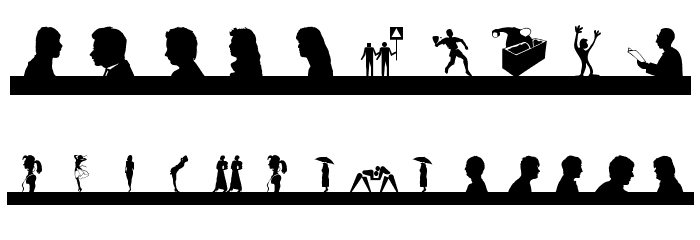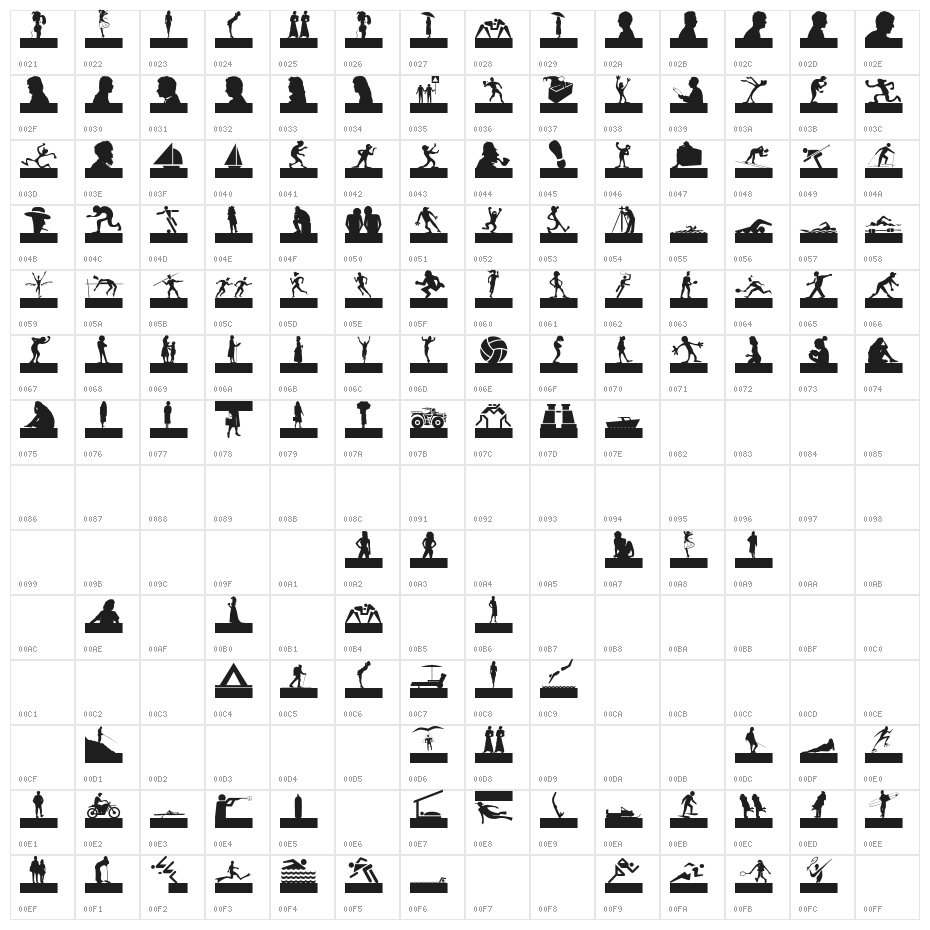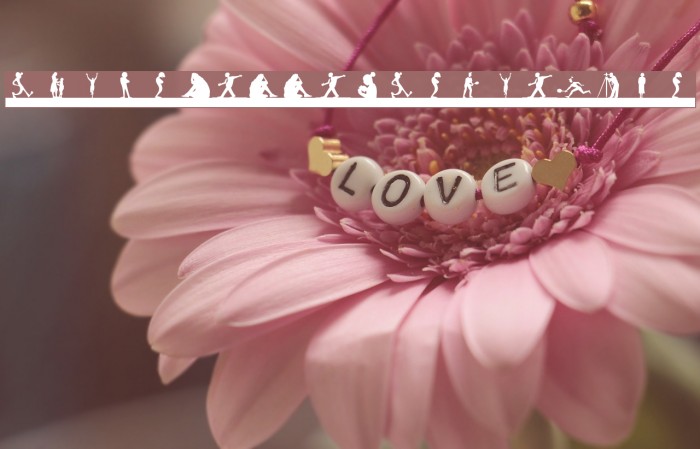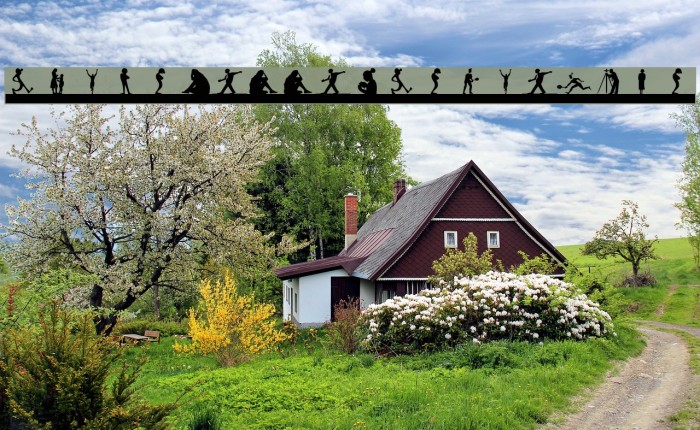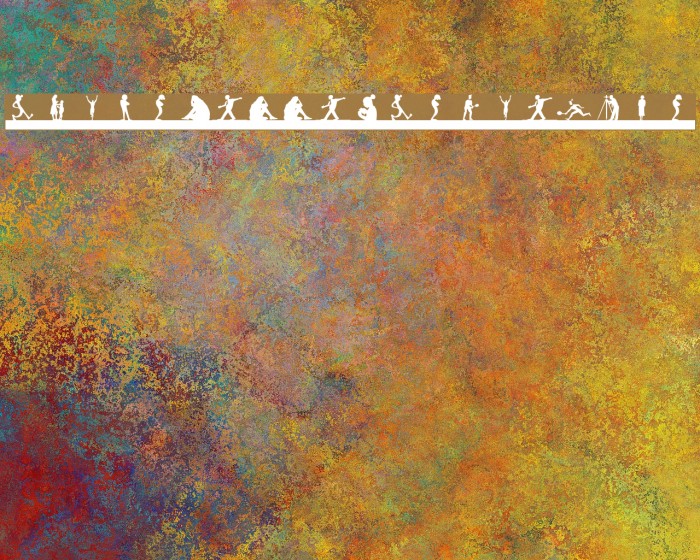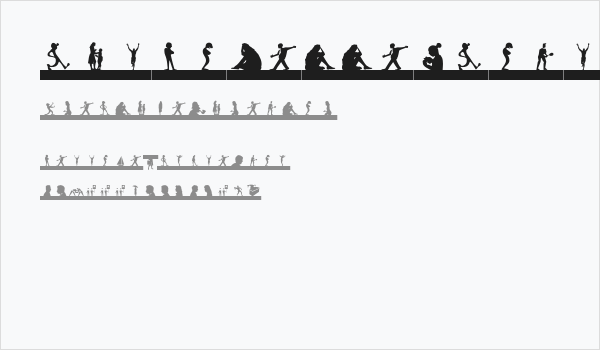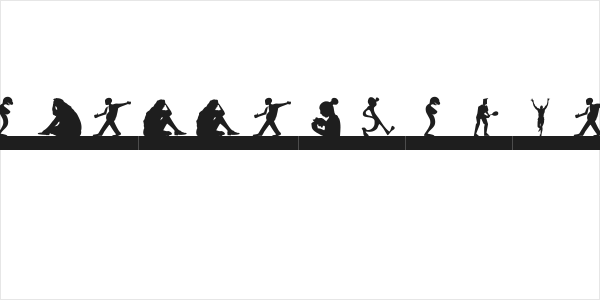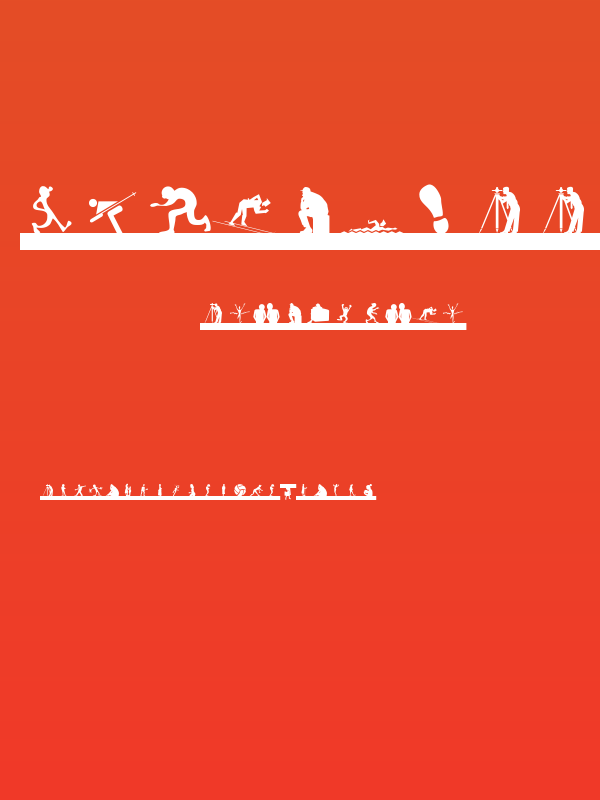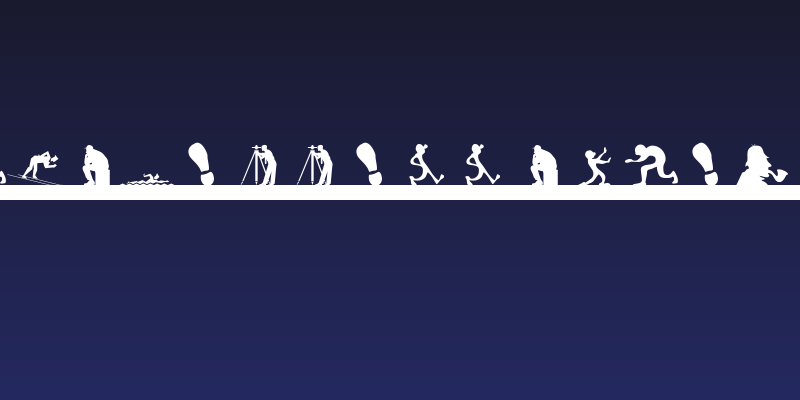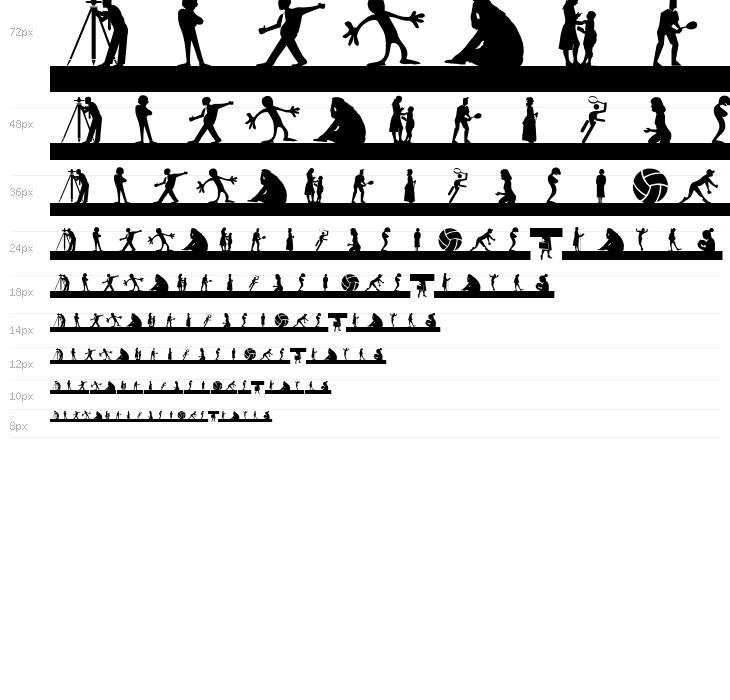
SilhouettesSocledTwo Font
SilhouettesSocledTwo Description
A decorative display typeface composed entirely of human and activity silhouettes forming each character, with each letter and symbol represented by a unique, detailed black silhouette against a white background. The figures are dynamic, often in motion or interacting with objects, creating a playful and illustrative effect.
| Overall Style | Decorative, Playful, Illustrative |
| Use Case | Headlines, Posters, Logos, Themed graphics |
| Proposed Projects | Event posters, creative branding, childrenΓ’β¬β’s books, sports or activity-themed graphics, educational materials. |